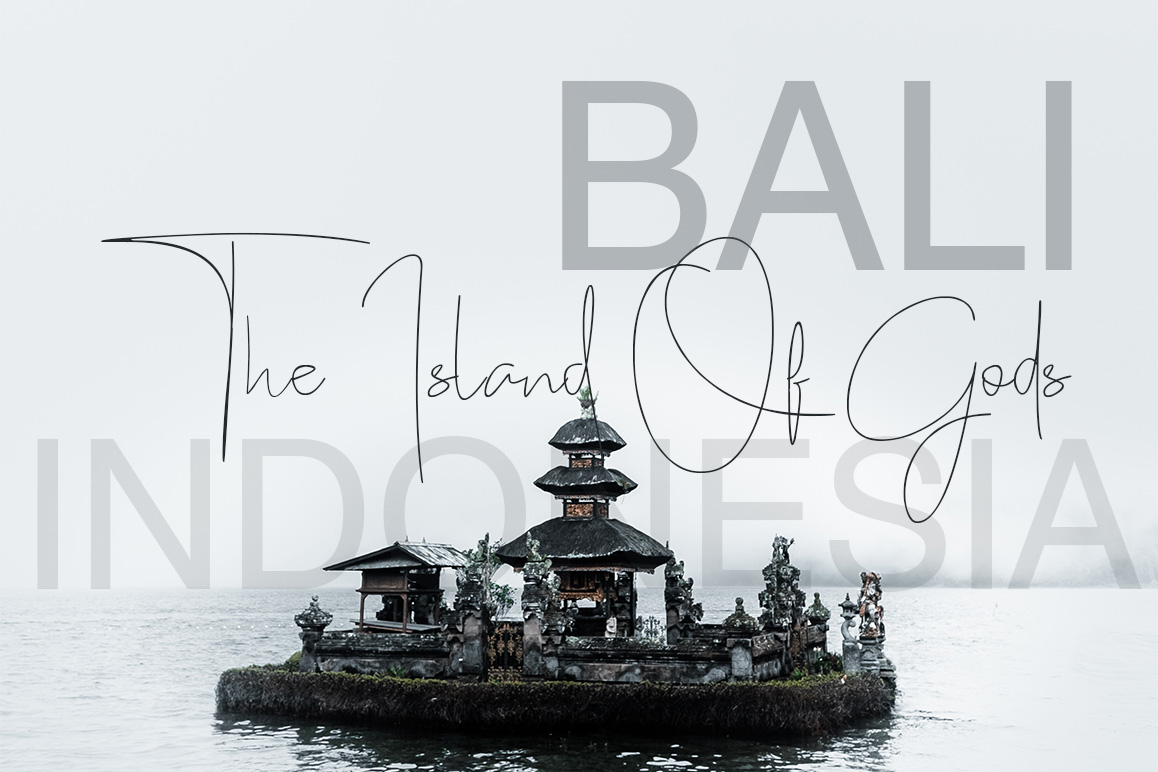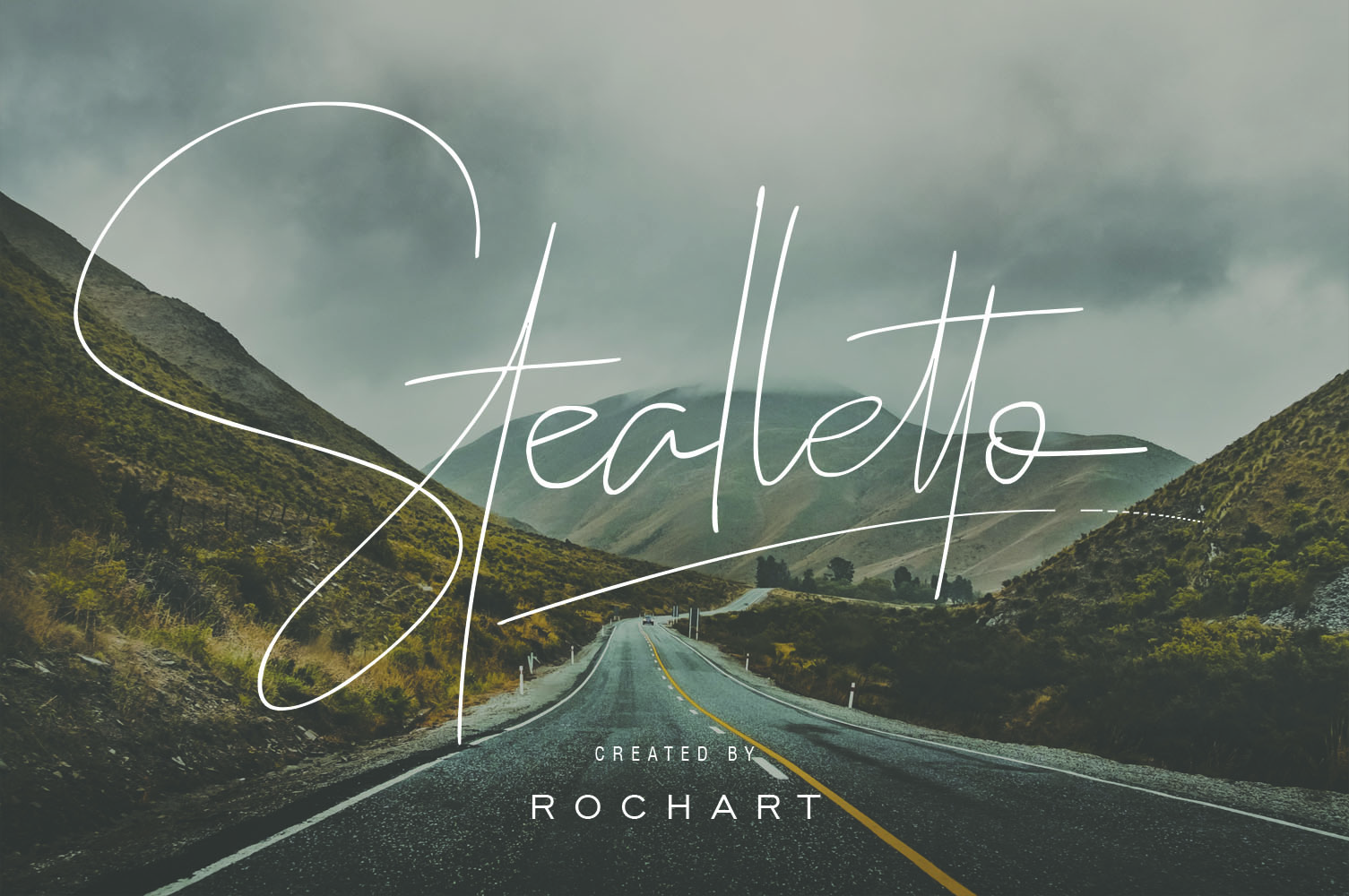
Stealletto Handwriting
Stealletto Handwriting Font
Stealletto is a gorgeous, thin script font that will add some charm and delight to your work. This sketchy, casual looking font can add some modernity and style to your designs.This demo font is for PERSONAL USE ONLY! But any donation are very appreciated.